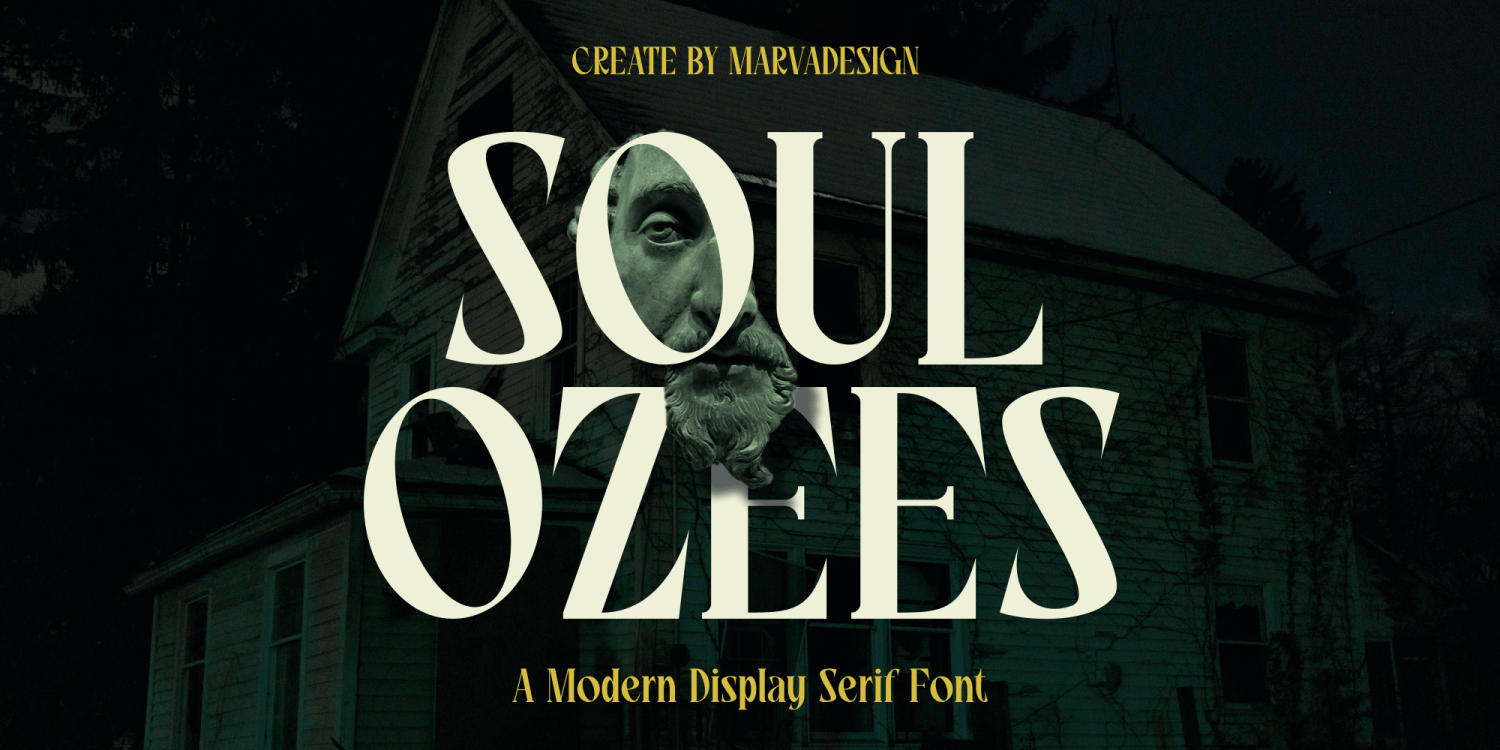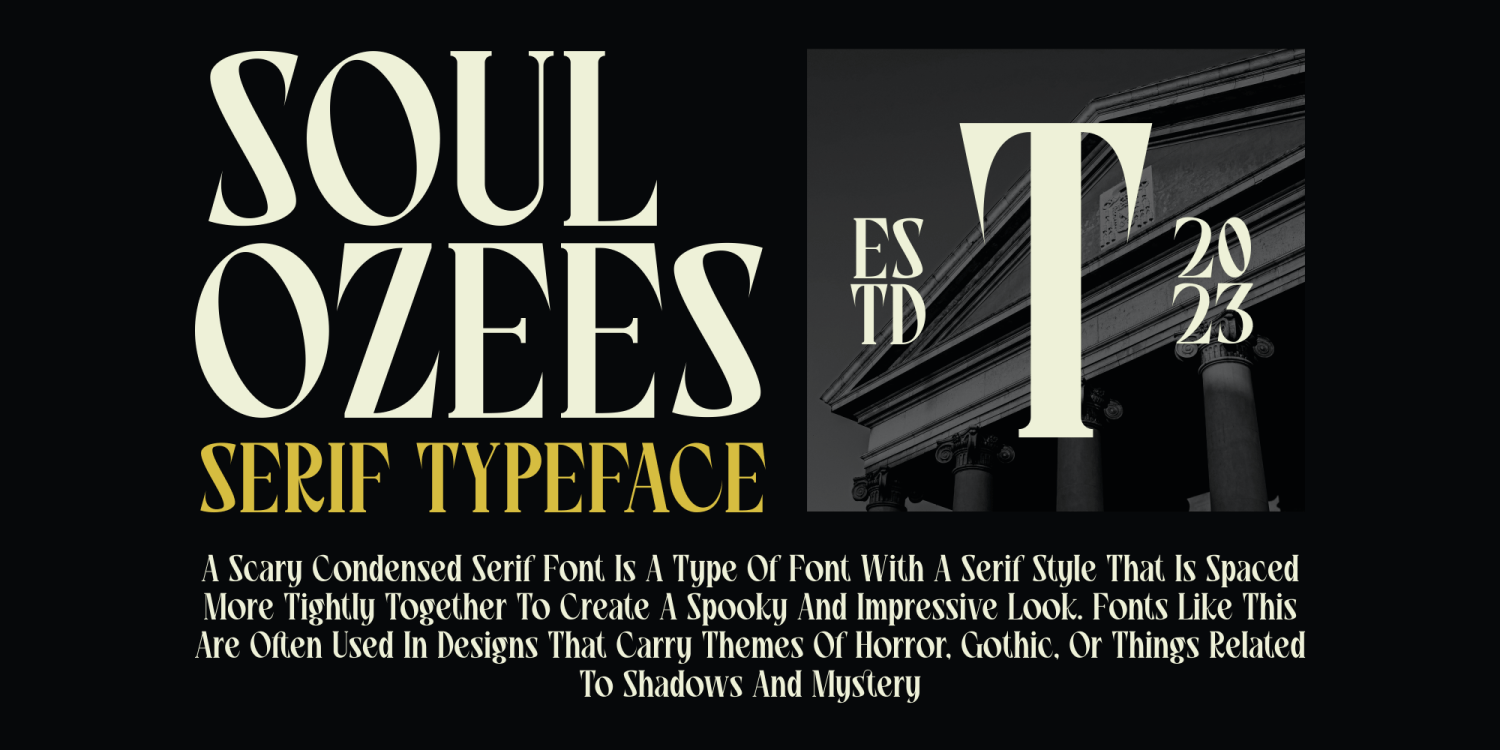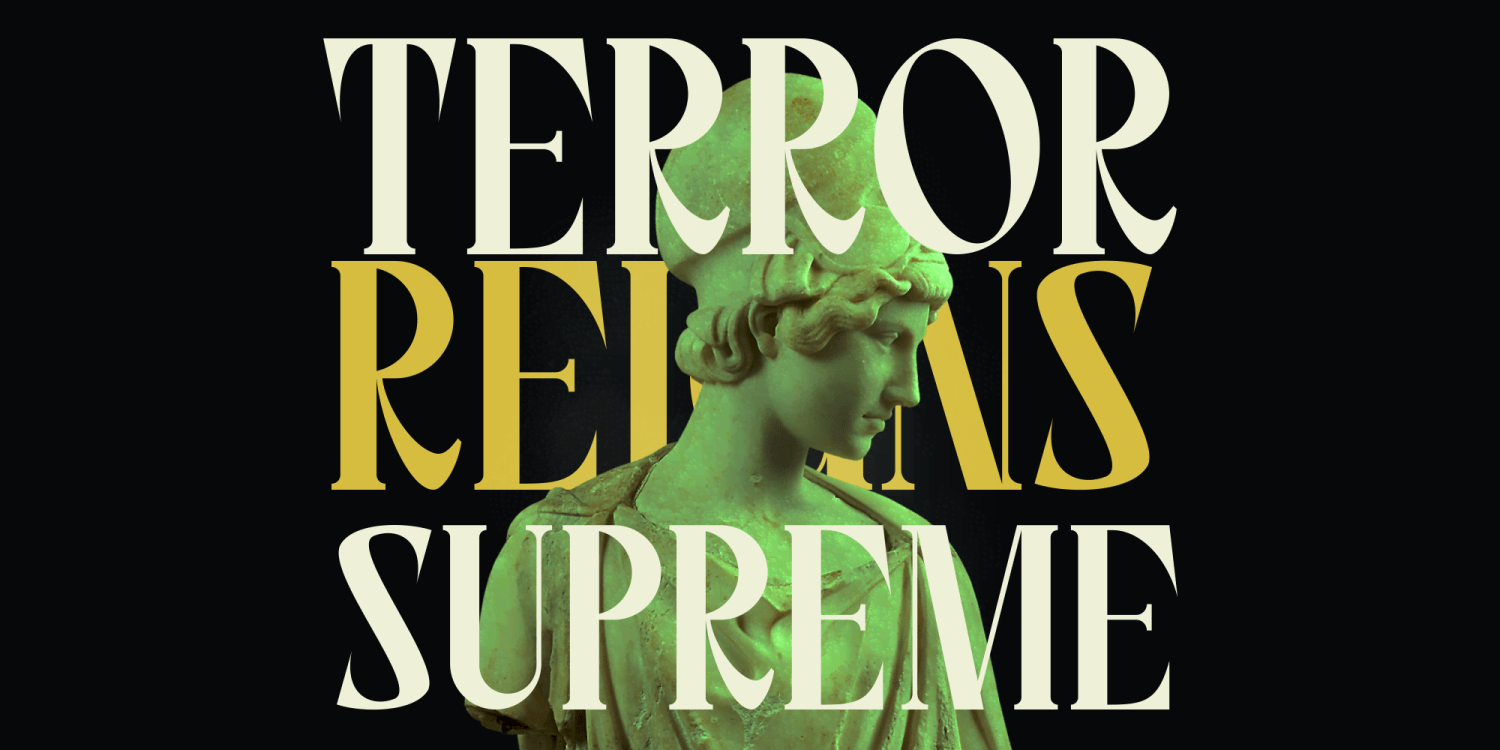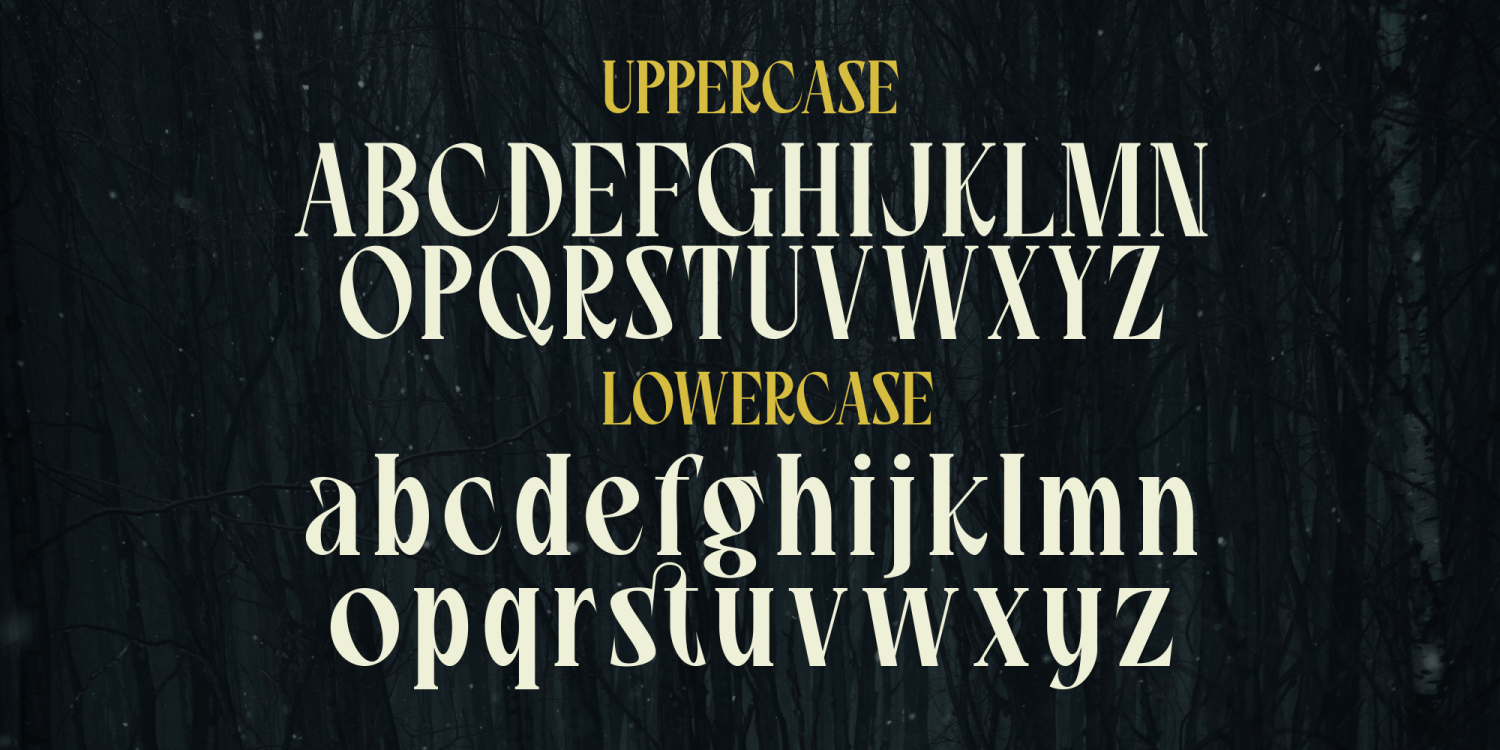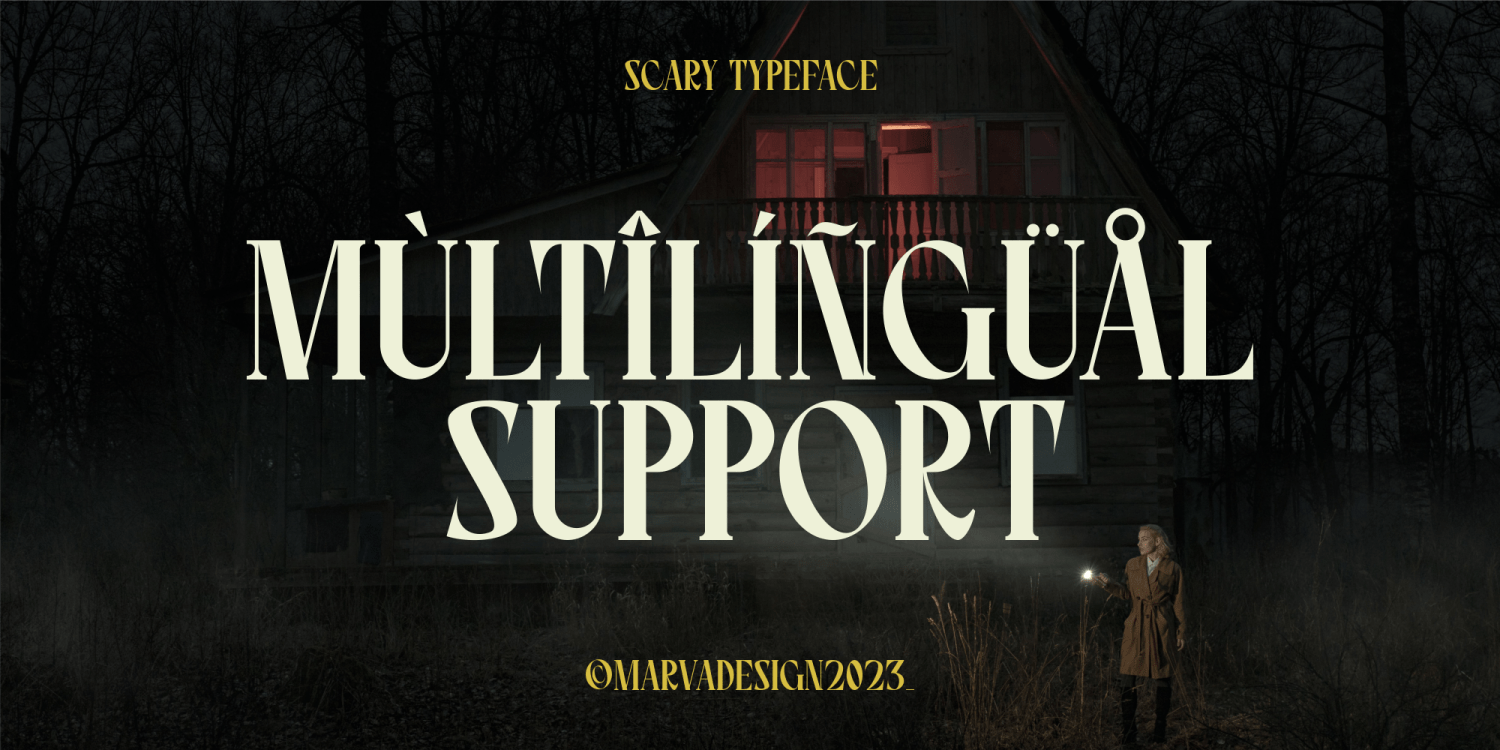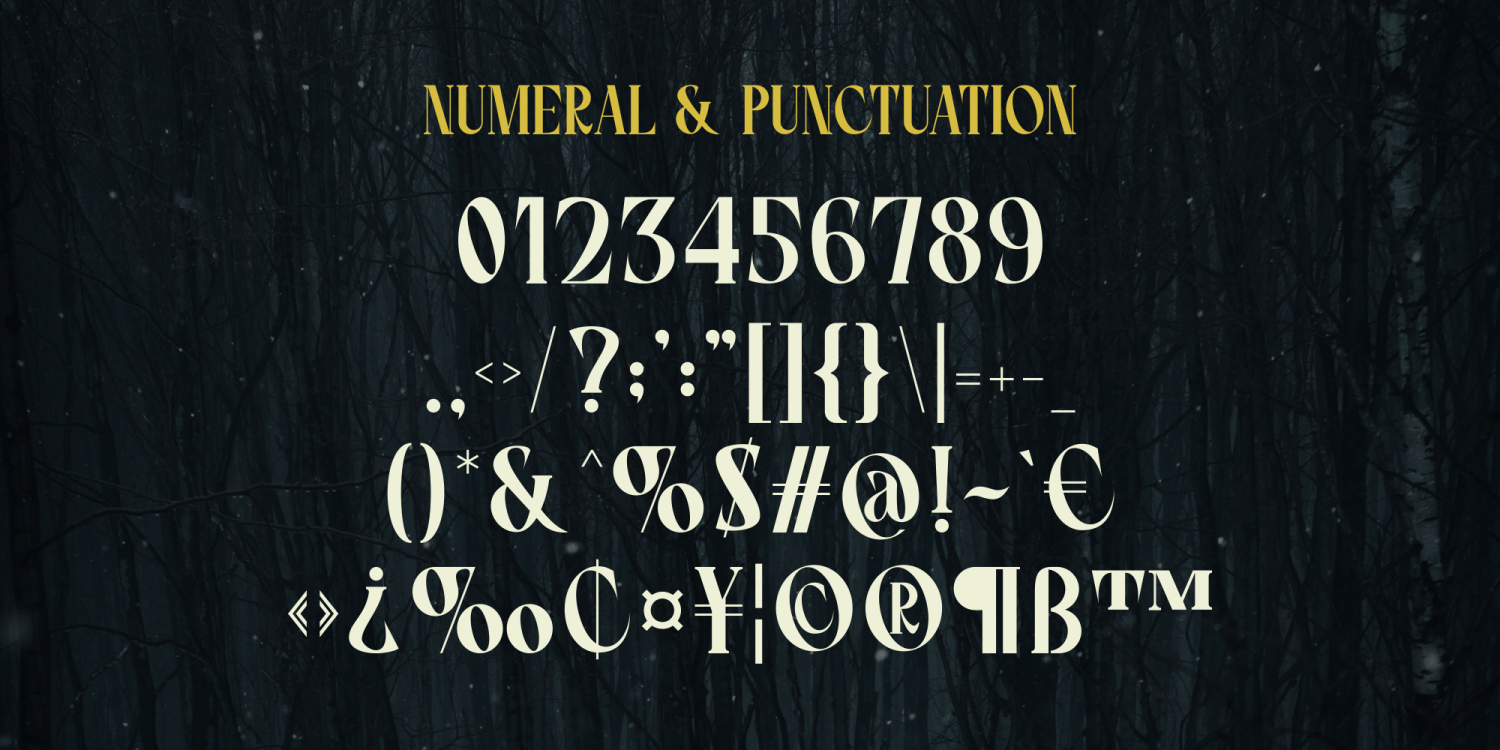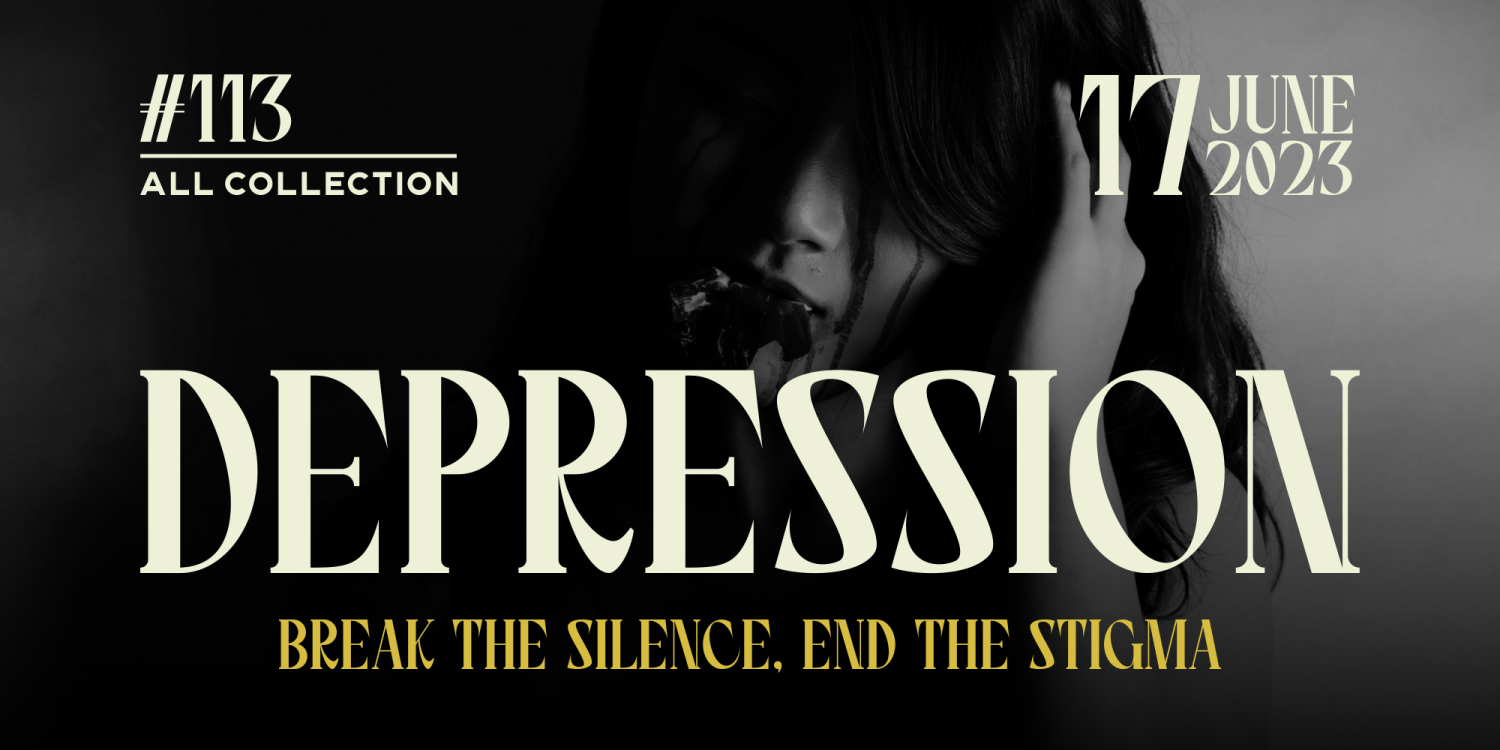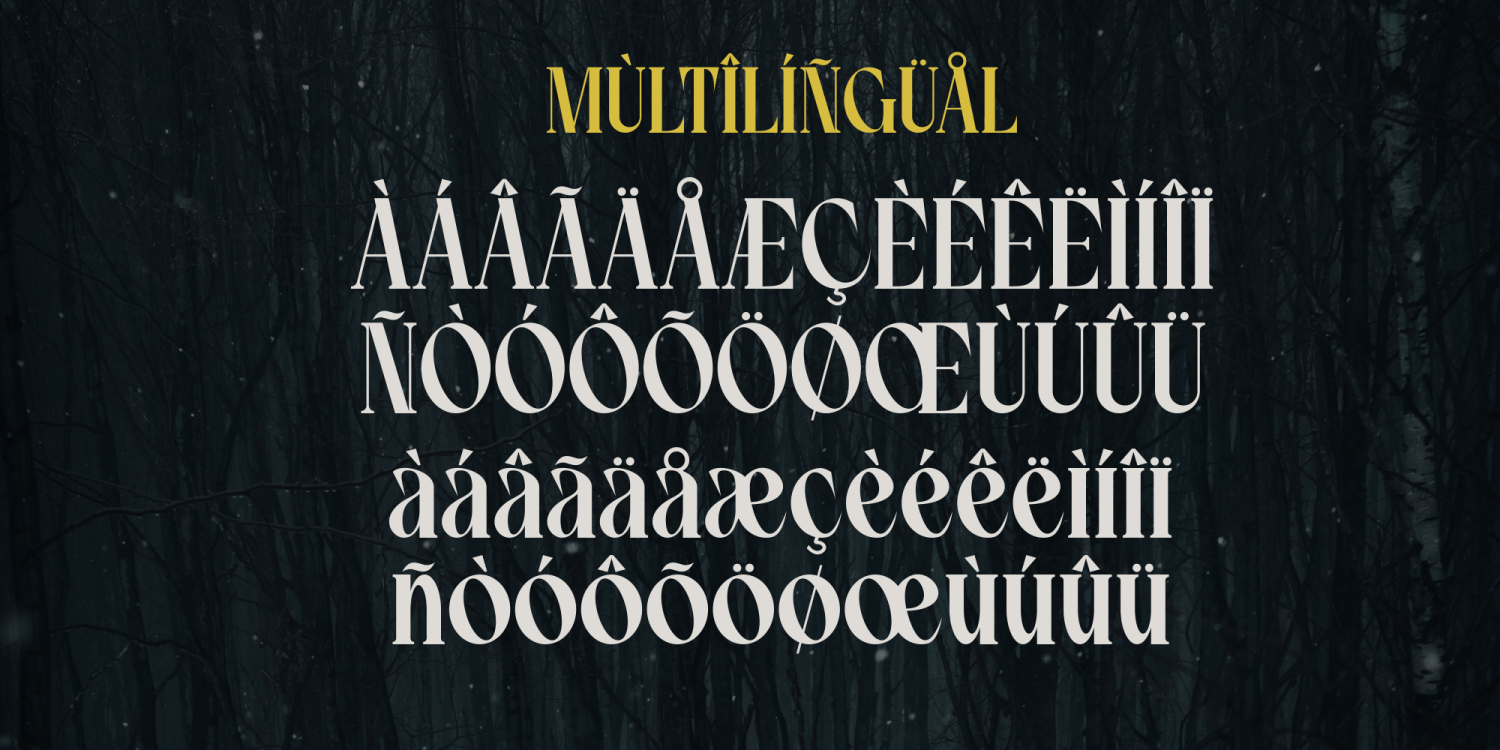
Soul Ozees
Font Family by Marvadesign
Introducing Soul Ozees is a distinctive display serif typeface with a semi-condensed style that captures attention through its unique character. Its memorable design ensures instant recognition, making it an ideal choice for impactful titles, posters, movie promotions, and magazine layouts. The bold yet refined nature of Soul Ozees adds a strong visual identity to your projects, seamlessly blending creativity and sophistication for a remarkable design experience.